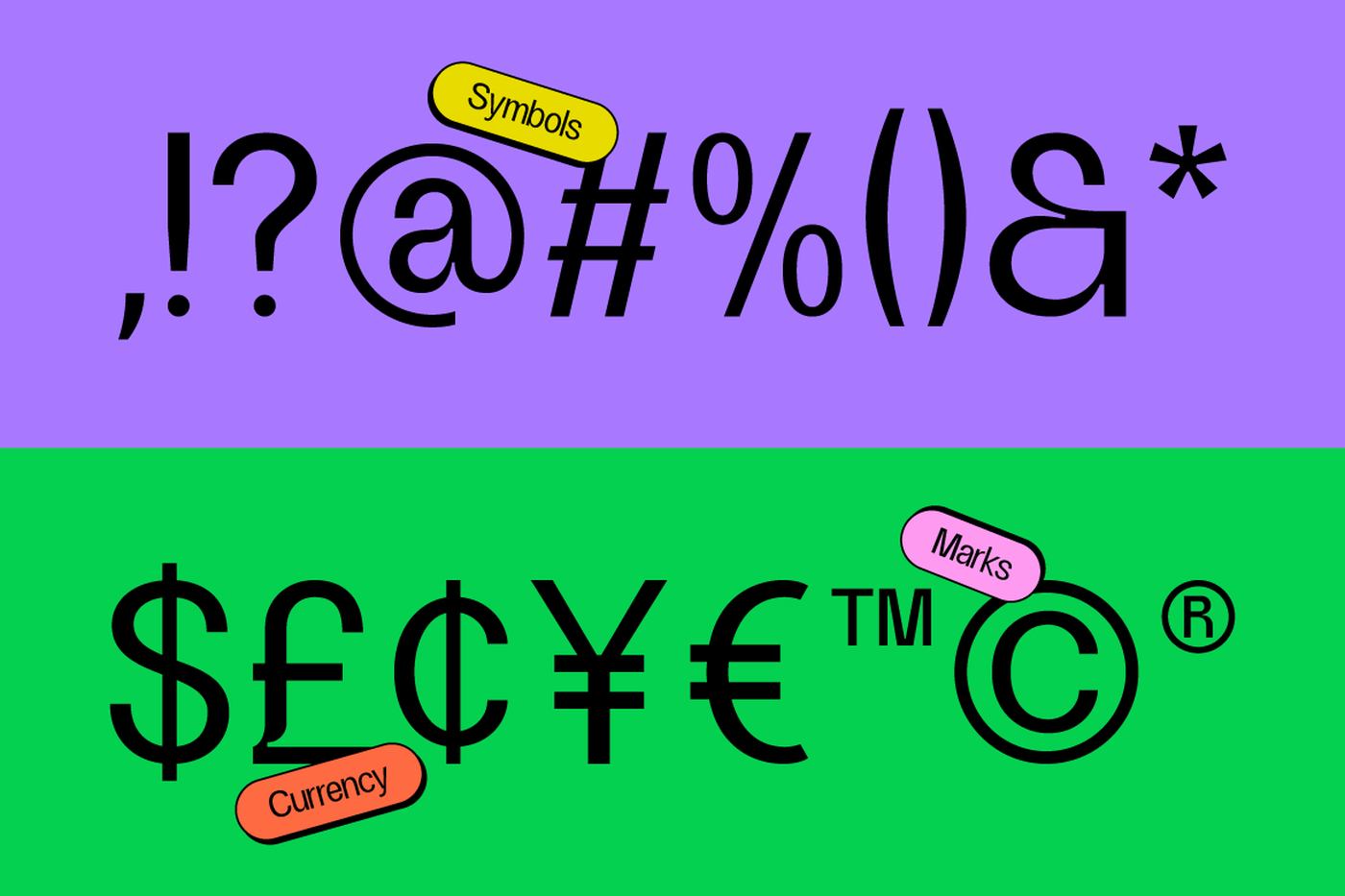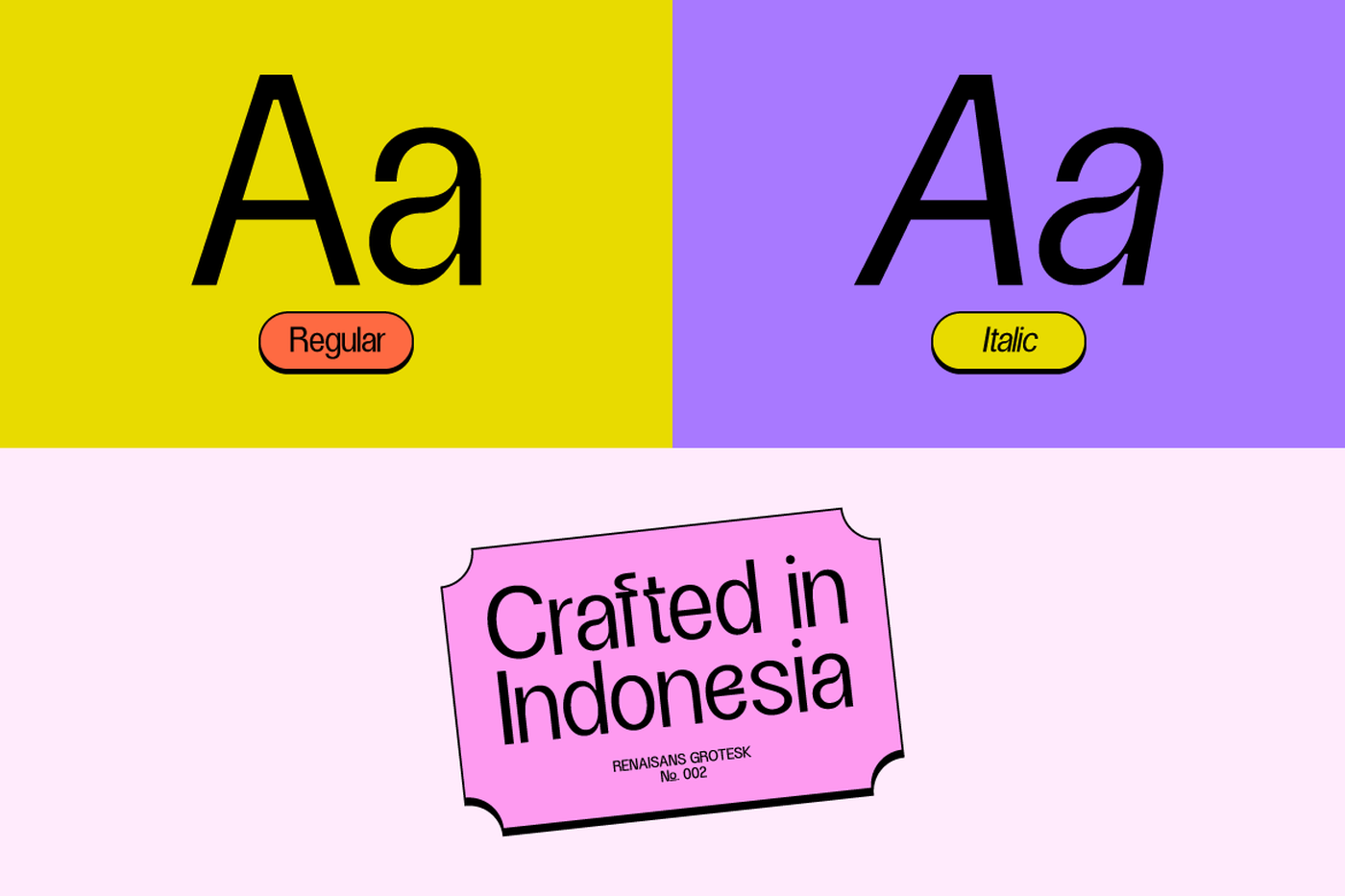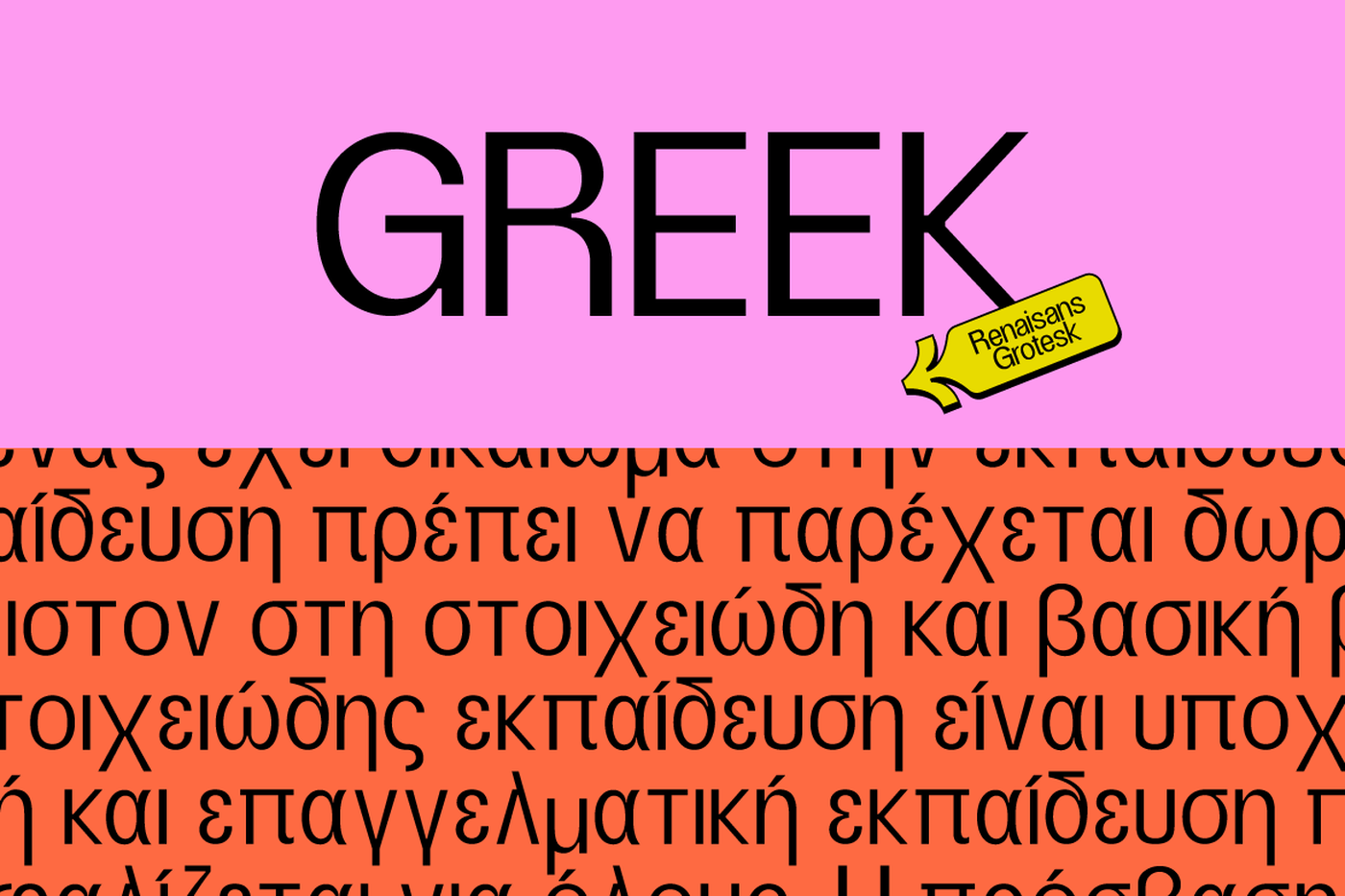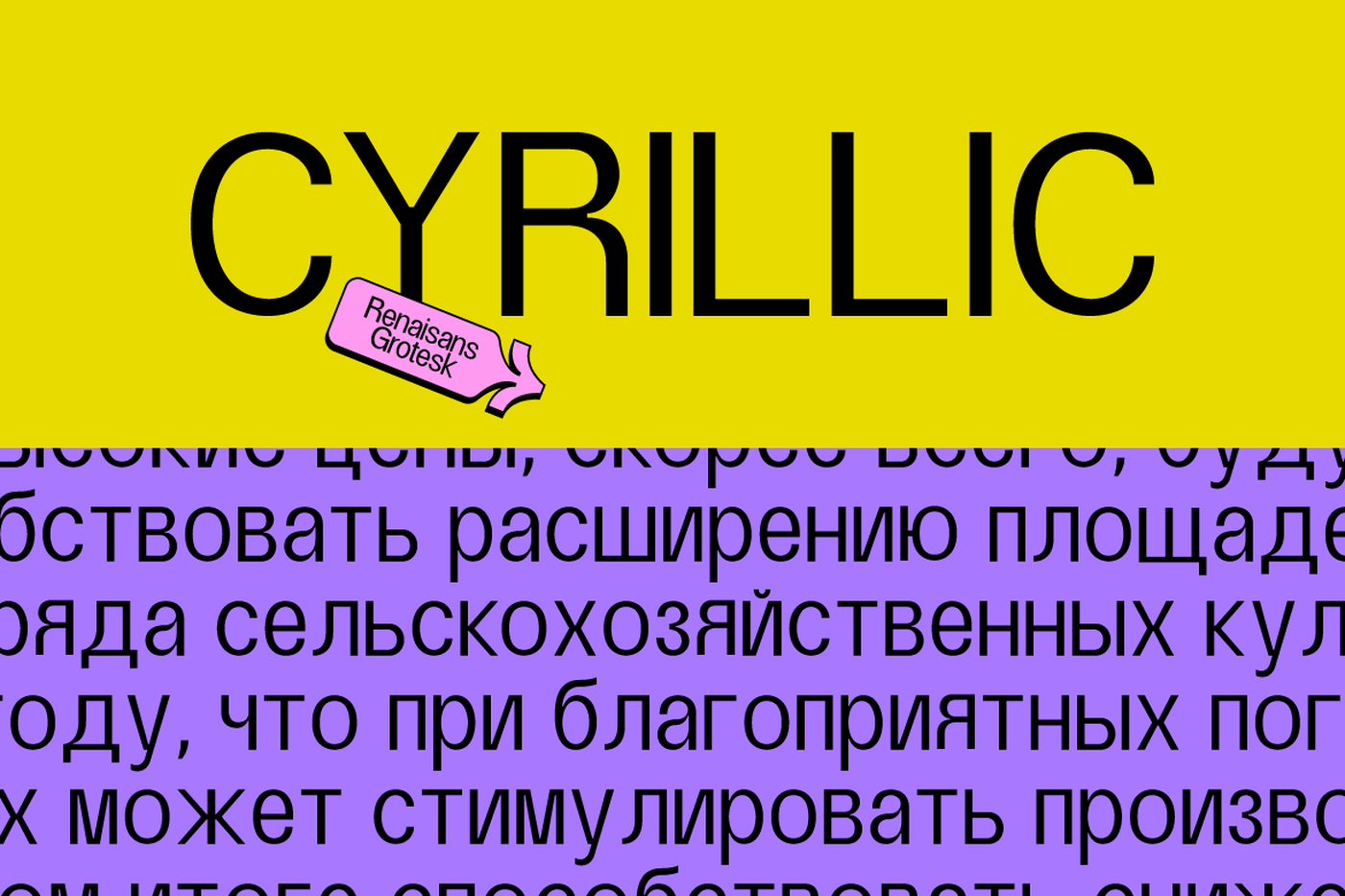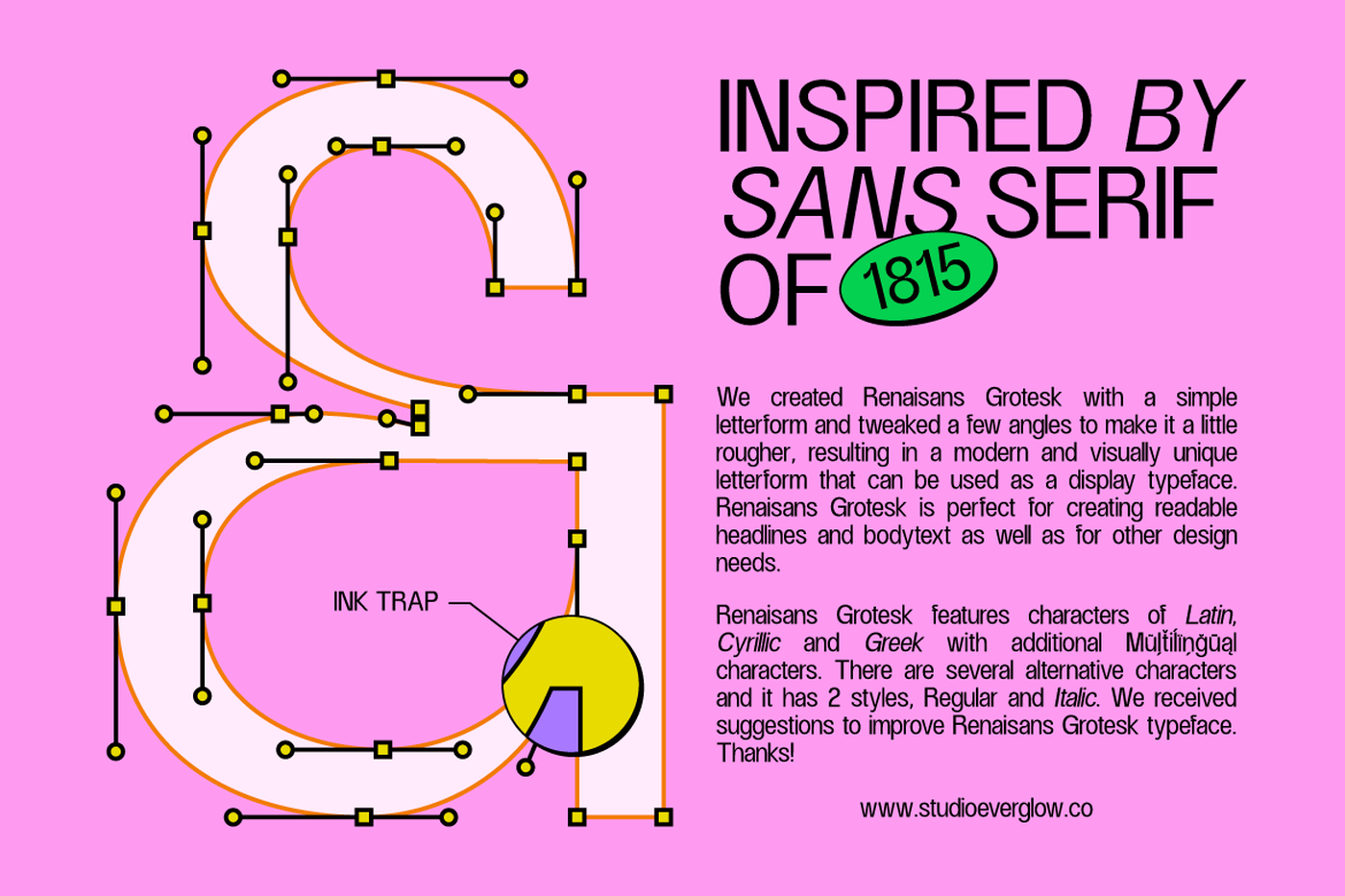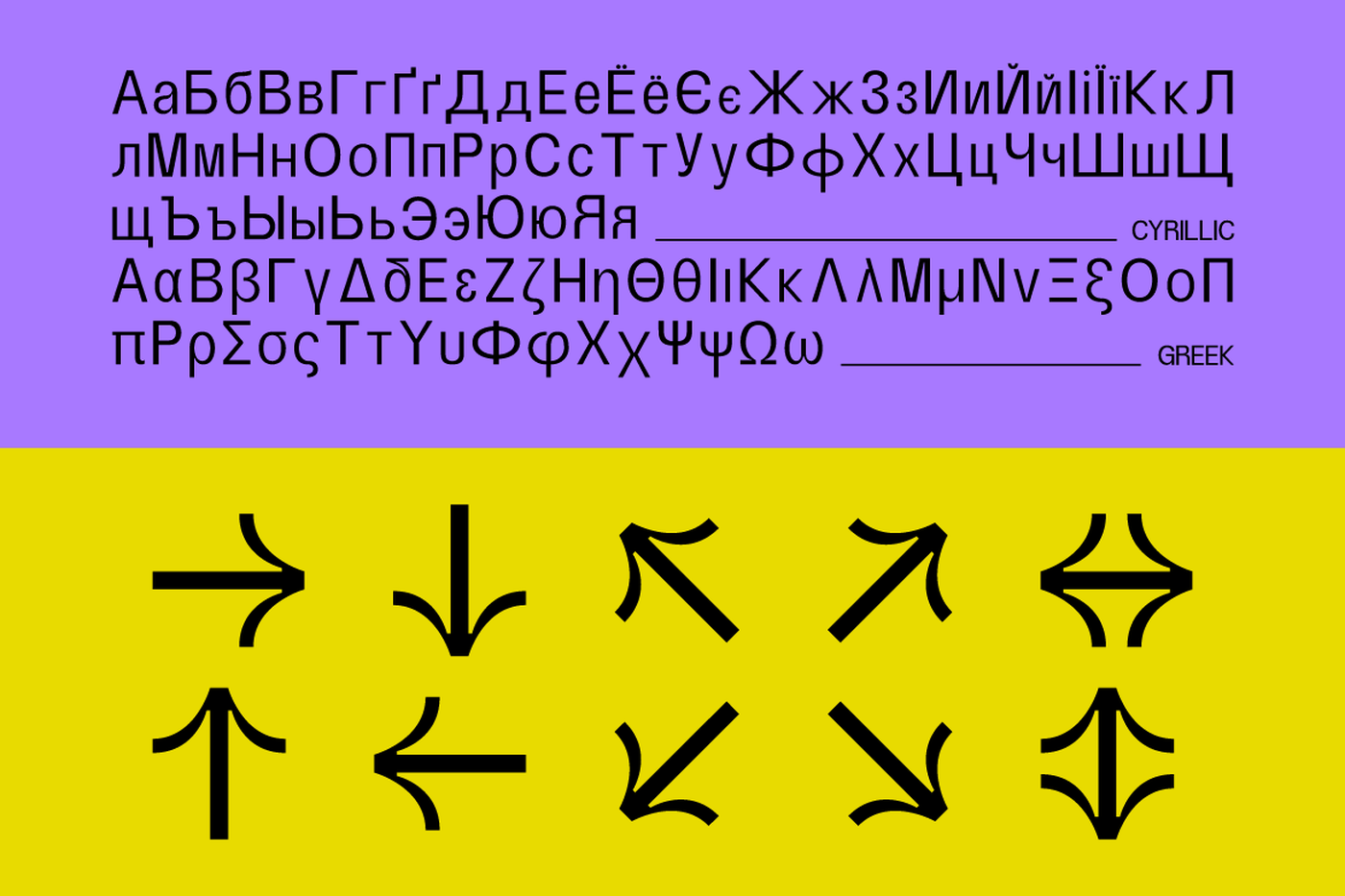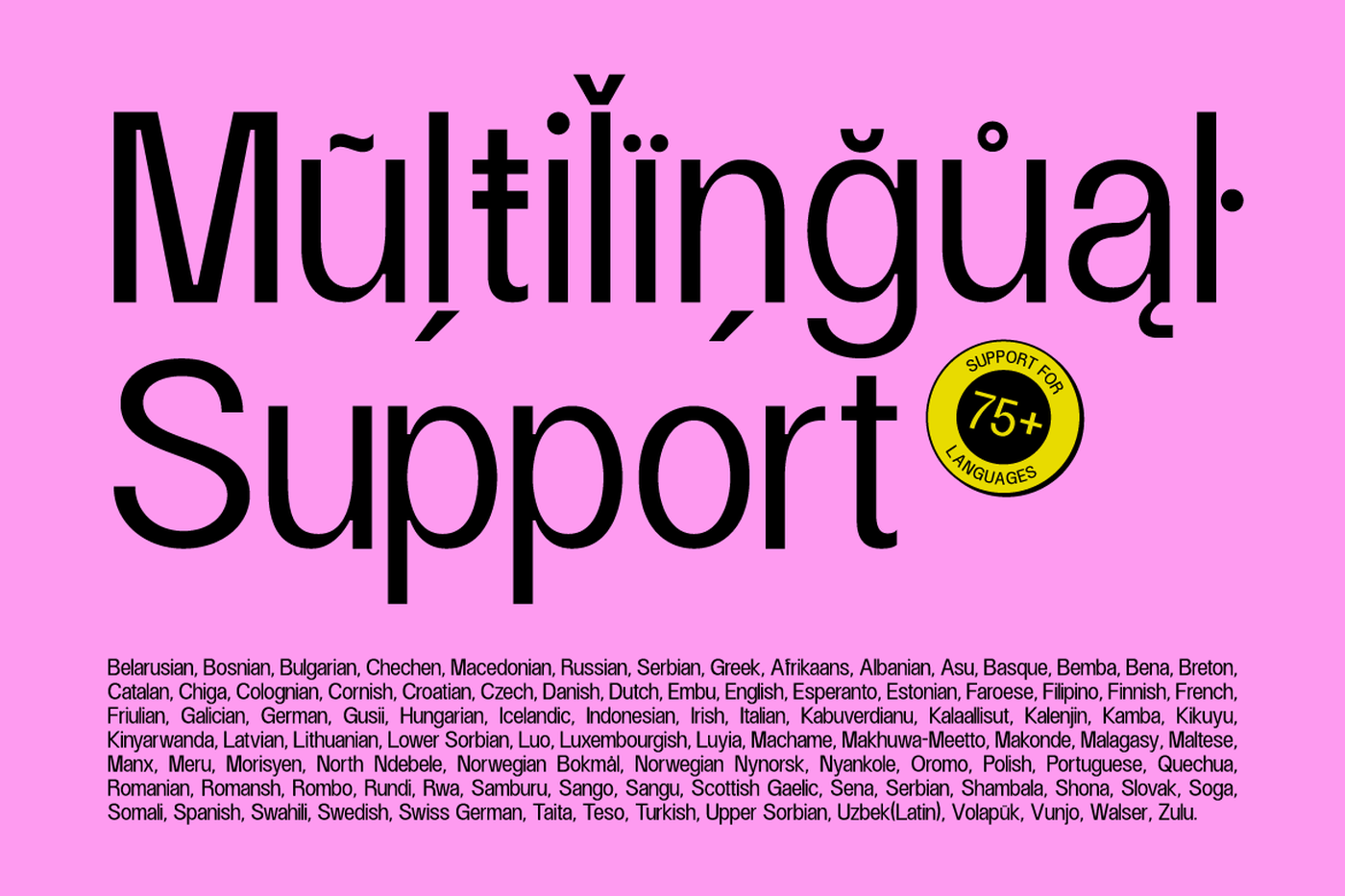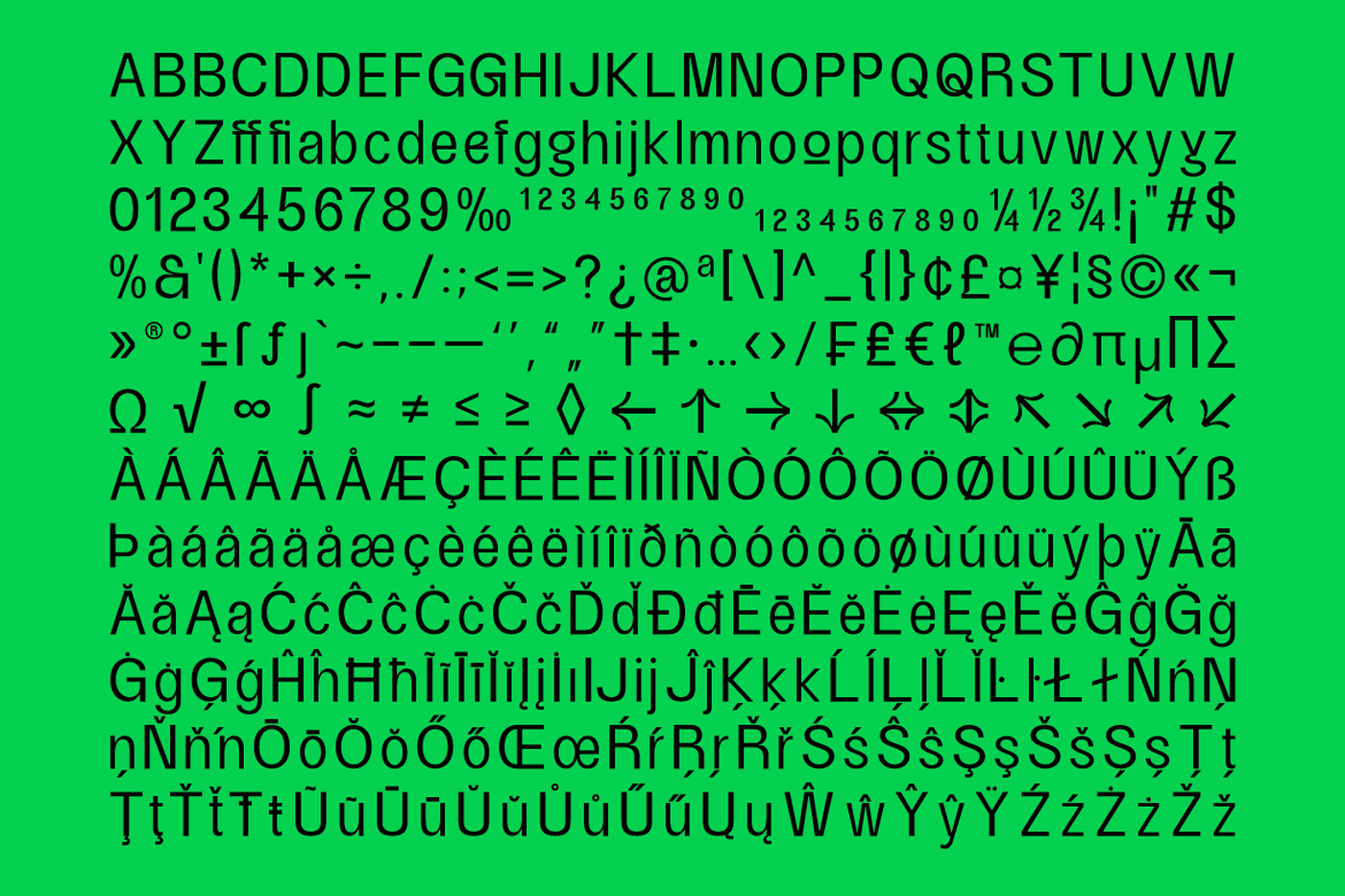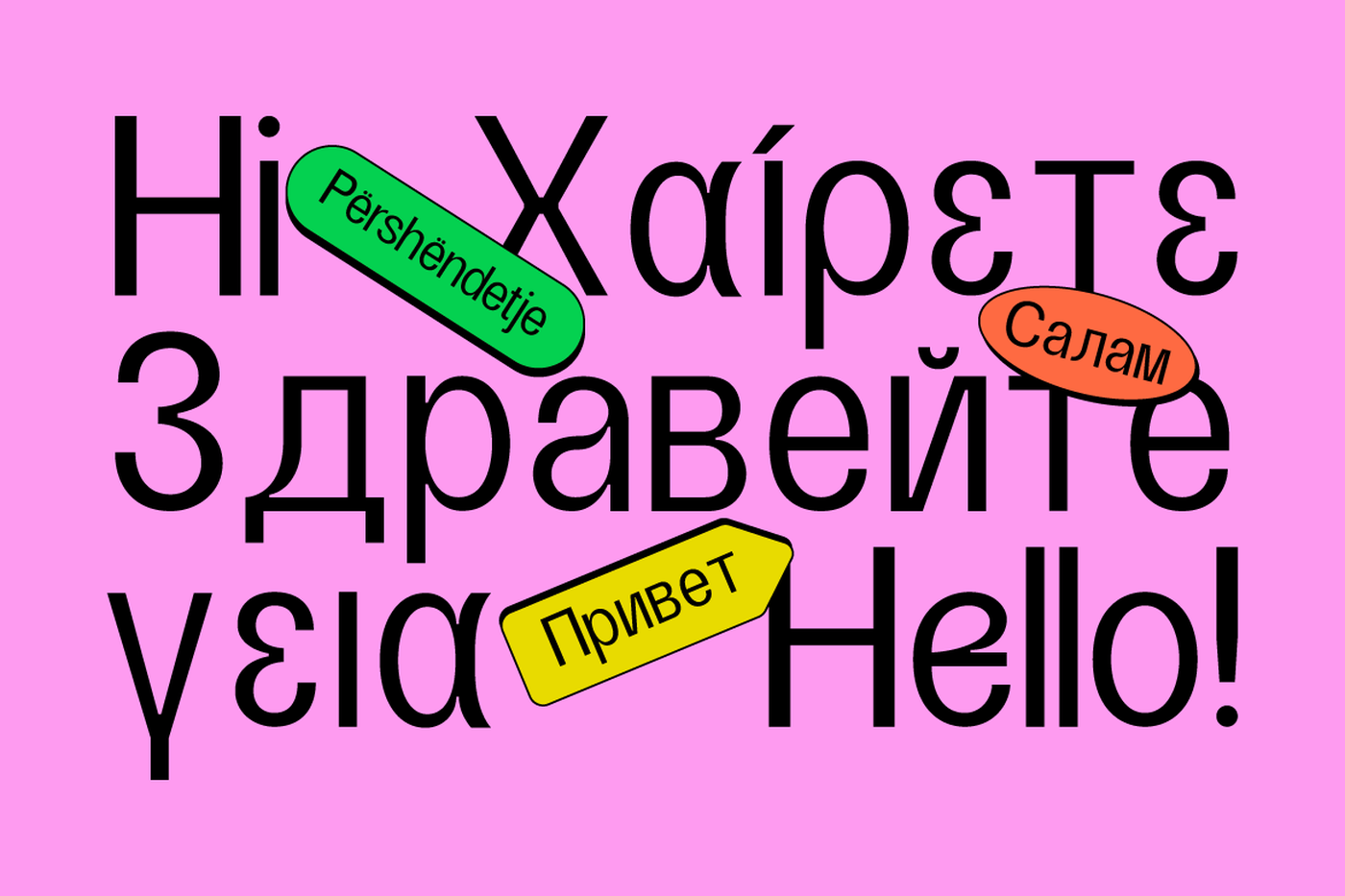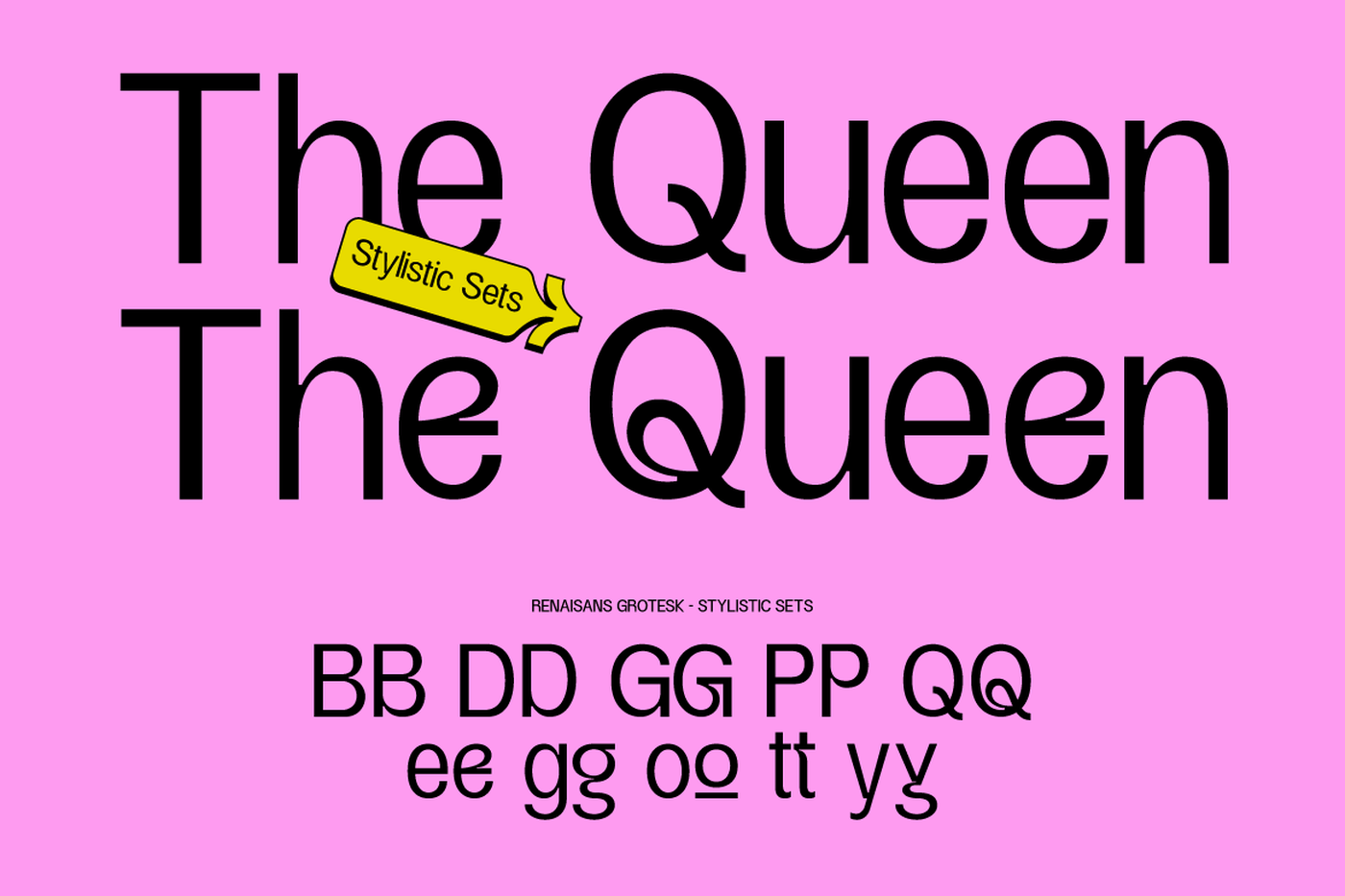
Renaisans Grotesk - Display Sans Serif Font
Renaisans Grotesk is a simple letterform and inspired by the Sans Serif of 1815. Font is perfect for creating readable headlines and bodytext as well as for other design needs. Renaisans Grotesk features characters of Latin, Cyrillic and Greek with additional Mũļťiĺïņğūąl characters (Support 75+ languages). There are several alternative characters and it has 2 styles, Regular and Italic.